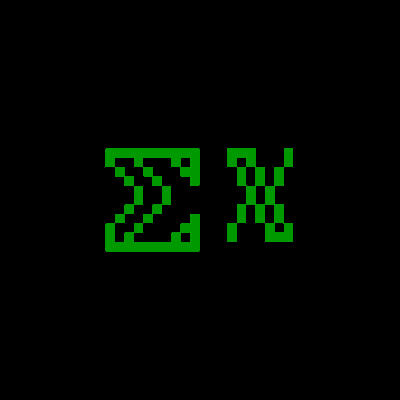
Font name: | Unifont Ex Mono |
Author: | stgiga |
Note by stgiga | |
This is the final version of my 6-year-long effort to make GNU Unifont (GPL2 + OFL 1.1) better (this is a fork, and I have a detailed documentation page at https://stgiga.github.io/UnifontEX which details a LOT). Paul Hardy (current maintainer of upstream Unifont) approves of my changes. Also, by no means is UnifontEX intending to replace or usurp mainstream Unifont. Also, any old versions of this project that might exist are ones I found to ultimately be quite obsolete in hindsight, and honestly had significant problems. I am a much different person now than who I was back then, in MANY ways. Oh, and I often look back on my older work and wonder what on Earth I was thinking, and this applies to those older versions to quite a significant degree. |